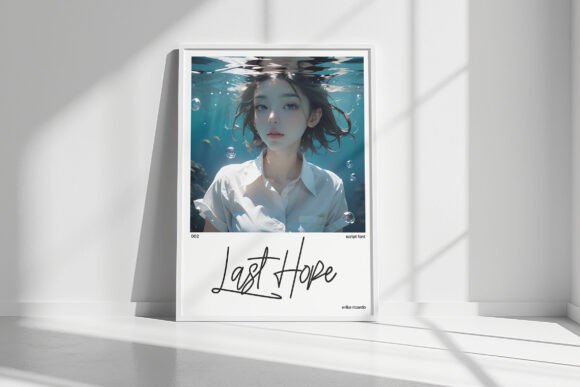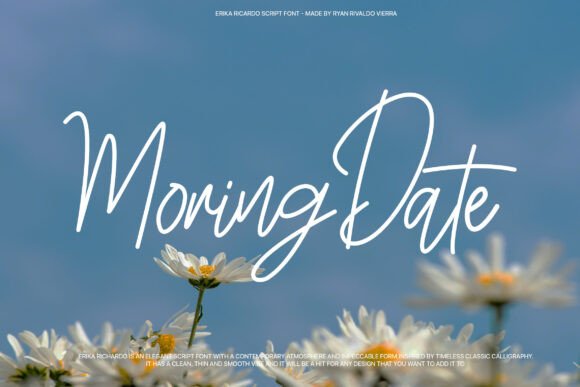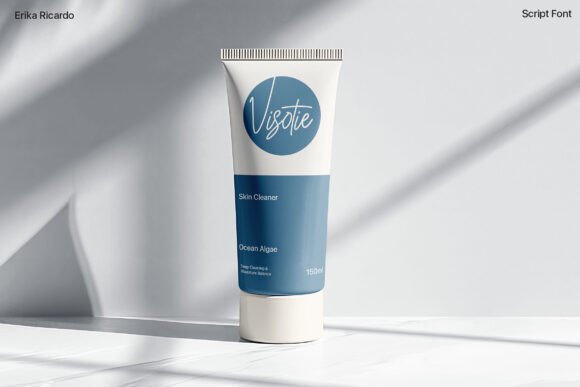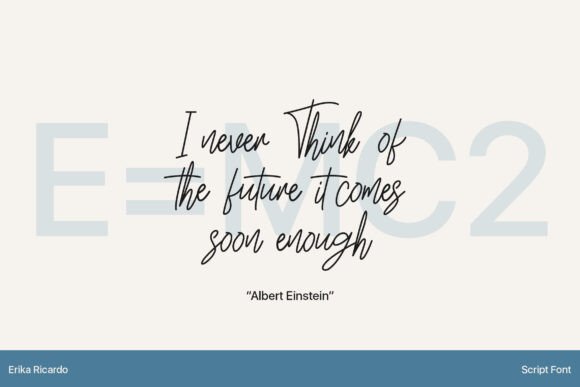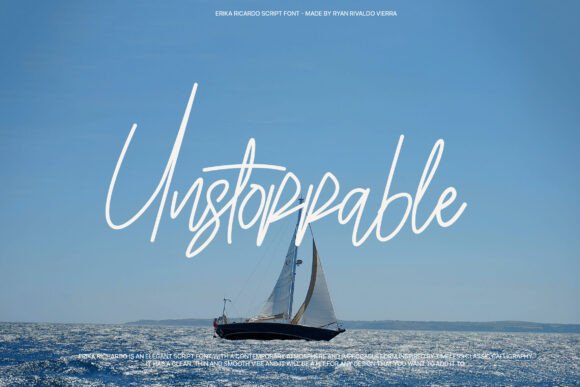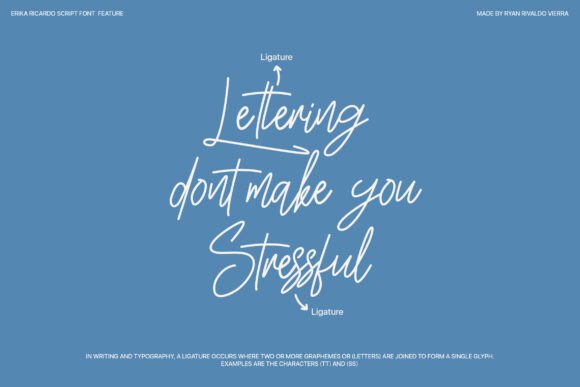
Erika Ricardo Font: Elevate Your Designs with Elegant Script Typography
In the world of typography, few fonts manage to capture the essence of classic calligraphy while still exuding a modern vibe. Erika Ricardo Font is one such elegant script font that has been making waves in the design community. Inspired by timeless classic calligraphy, Erika Ricardo boasts a clean, thin, and smooth aesthetic that is sure to elevate any design project. In this article, we’ll delve into the features, benefits, and uses of Erika Ricardo Font, and explore why it’s becoming a favorite among designers and crafters.
The Inspiration Behind Erika Ricardo Font
Erika Ricardo Font draws inspiration from traditional calligraphy, but with a contemporary twist. The font’s creator aimed to craft a typeface that would embody the elegance and sophistication of classic calligraphy, while still feeling fresh and modern. The result is a font that is both refined and approachable, making it perfect for a wide range of design applications.
Key Features of Erika Ricardo Font
So, what sets Erika Ricardo Font apart from other script fonts? Here are some of its key features:
- Elegant and refined: Erika Ricardo Font features a sleek, cursive design that exudes sophistication and poise.
- Clean and thin: The font’s clean lines and thin strokes create a sense of airiness and lightness, making it perfect for designs that require a touch of elegance.
- Smooth and flowing: Erika Ricardo Font features smooth, connected letters that create a sense of fluidity and movement.
- Contemporary atmosphere: Despite being inspired by classic calligraphy, Erika Ricardo Font has a distinctly modern feel that will appeal to designers looking for a fresh take on traditional typography.
Benefits of Using Erika Ricardo Font
So, why should you choose Erika Ricardo Font for your next design project? Here are just a few benefits of using this elegant script font:
- Adds elegance to any design: Erika Ricardo Font is the perfect way to add a touch of sophistication and refinement to your designs.
- Versatile: This font is suitable for a wide range of design applications, from logos and branding to invitations and packaging.
- Easy to read: Despite its elegant design, Erika Ricardo Font is surprisingly easy to read, making it perfect for body text as well as headlines.
- Unique and distinctive: Erika Ricardo Font has a unique and distinctive style that will help your designs stand out from the crowd.
Using Erika Ricardo Font in Your Designs
So, how can you use Erika Ricardo Font in your designs? Here are a few ideas to get you started:
- Logos and branding: Erika Ricardo Font is perfect for creating elegant and sophisticated logos and branding materials.
- Invitations and stationery: This font is ideal for creating beautiful invitations, wedding stationery, and other paper goods.
- Packaging and product design: Erika Ricardo Font can add a touch of elegance and sophistication to packaging and product design.
- Digital designs: This font is also suitable for digital designs, such as website headers, social media graphics, and email newsletters.
| Font Name | Erika Ricardo Font |
| Author | Ryan Vierra |
Erika Ricardo Font is an elegant script font that is sure to elevate any design project. With its clean, thin, and smooth aesthetic, this font is perfect for designers and crafters looking to add a touch of sophistication and refinement to their work. Whether you’re creating logos and branding, invitations and stationery, or packaging and product design, Erika Ricardo Font is a versatile and stylish choice. So why not give it a try and see how it can enhance your designs?